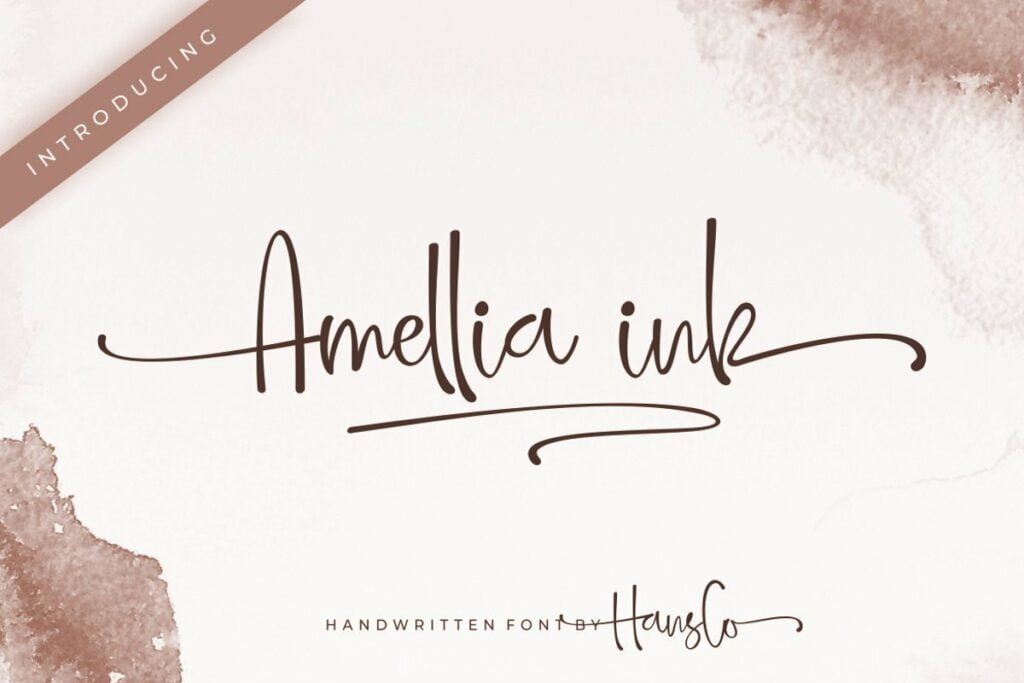
Amellia Ink Font
Introducing our new Amellia Ink Handwritten Font is a beautiful, feminine and natural handwritten script font. Several swash alternatives are also available in this font. This font is perfect for creating logo, watermark, branding, wedding invitation, quote, or anything else. Let’s make something beautiful project with this.
Amellia Ink Handwritten Script Font